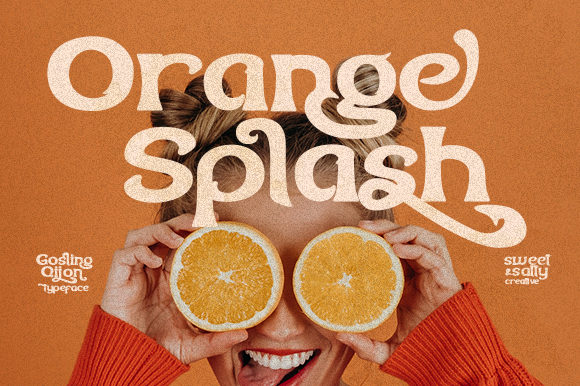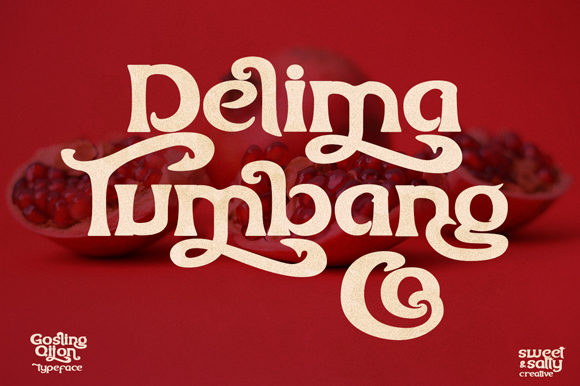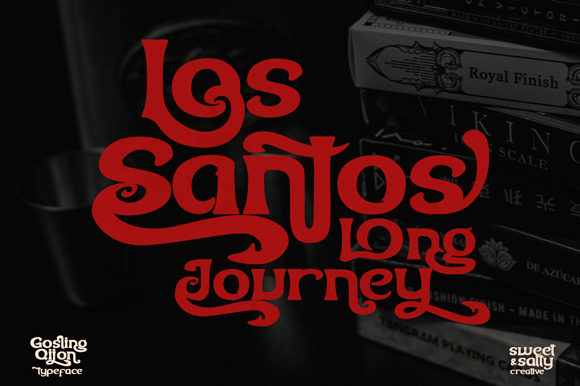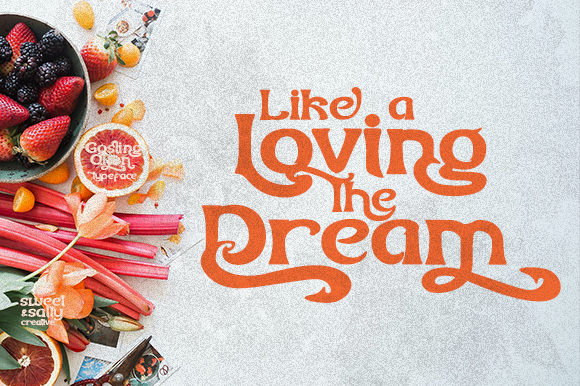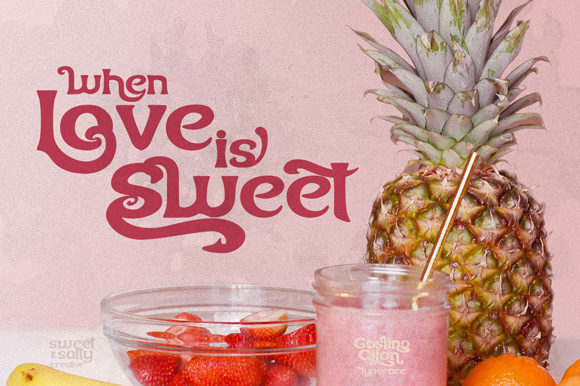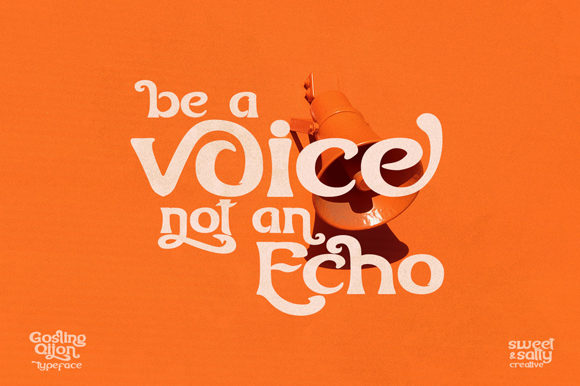
Gosling Qijon Font: Elevate Your Designs with a Vintage Chunky Twist
In the realm of typography, fonts play a pivotal role in shaping the visual identity of a design. Among the myriad of fonts available, Gosling Qijon stands out as a distinctive display font that seamlessly blends chunky lettering with a vintage aesthetic. This article delves into the characteristics, uses, and benefits of incorporating Gosling Qijon into your design projects, highlighting why it has become a sought-after choice for designers and crafters alike.
What is Gosling Qijon Font?
Gosling Qijon is a chunky lettered, yet distinct display font that exudes a vintage style. Its unique appearance is characterized by bold, substantial letters that command attention without overwhelming the senses. This balance makes Gosling Qijon an incredibly versatile font, suitable for a wide variety of design applications, from branding and advertising to packaging and digital media.
Key Features of Gosling Qijon Font
- Vintage Aesthetic: Gosling Qijon’s design is deeply rooted in vintage typography, offering a nostalgic feel that can add depth and character to modern designs.
- Chunky Lettering: The font’s chunky lettering gives it a bold and sturdy appearance, making it perfect for headlines, titles, and short texts that need to stand out.
- Versatility: Despite its specific vintage and chunky characteristics, Gosling Qijon can be adapted to various design contexts, from playful and casual to elegant and sophisticated.
- Legibility: One of the key advantages of Gosling Qijon is its legibility, even in larger sizes. This makes it an excellent choice for signage, posters, and digital displays.
Applications of Gosling Qijon Font
The versatility of Gosling Qijon font makes it suitable for a myriad of applications. Here are some of the most notable uses:
- Branding and Logo Design: Gosling Qijon’s unique vintage-chunky style can help brands stand out and convey a sense of history and reliability.
- Advertising and Marketing Materials: Whether it’s billboards, flyers, or social media ads, Gosling Qijon can make your message more compelling and eye-catching.
- Packaging Design: For product packaging, Gosling Qijon can add a distinctive touch, making products more noticeable on store shelves.
- Digital Media: In the digital realm, Gosling Qijon can enhance the visual appeal of websites, blogs, and digital publications, providing a memorable user experience.
Tips for Using Gosling Qijon Font Effectively
To maximize the impact of Gosling Qijon in your designs, consider the following tips:
- Pair with Simpler Fonts: For body text, pair Gosling Qijon with simpler, more readable fonts to create contrast and ensure readability.
- Experiment with Colors: While Gosling Qijon looks great in bold colors, experimenting with different shades and gradients can further enhance its vintage appeal.
- Play with Sizes: Don’t be afraid to vary the size of your text. Using Gosling Qijon in different sizes can create a dynamic and engaging visual hierarchy.
Gosling Qijon font is a powerful tool for designers and crafters looking to add a vintage-chunky twist to their projects. Its unique blend of bold lettering and nostalgic aesthetic makes it an excellent choice for a wide range of applications, from branding and advertising to packaging and digital media. By incorporating Gosling Qijon into your design repertoire, you can create visually striking and memorable pieces that stand out in a crowded design landscape.
Whether you’re a seasoned designer or a crafting enthusiast, Gosling Qijon invites you to explore new creative horizons. So, add it to your favorite ideas and notice how it transforms them into standout designs that capture attention and leave a lasting impression.